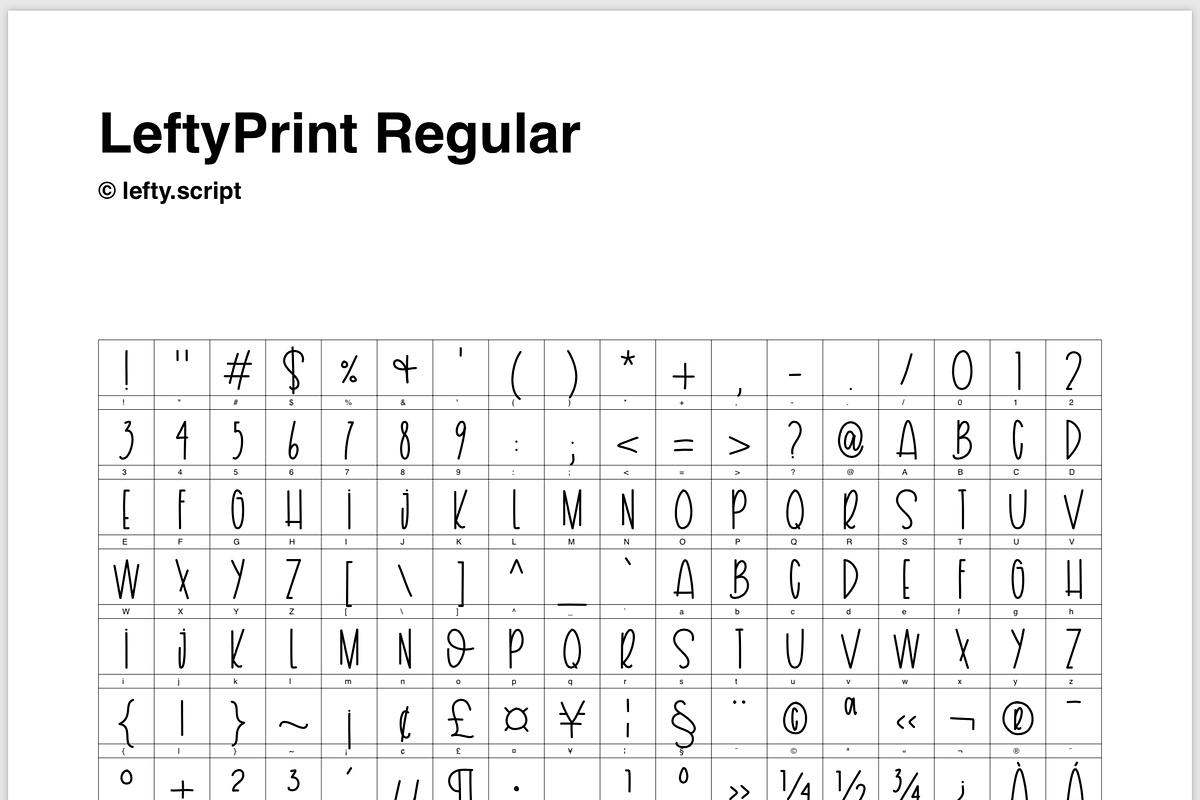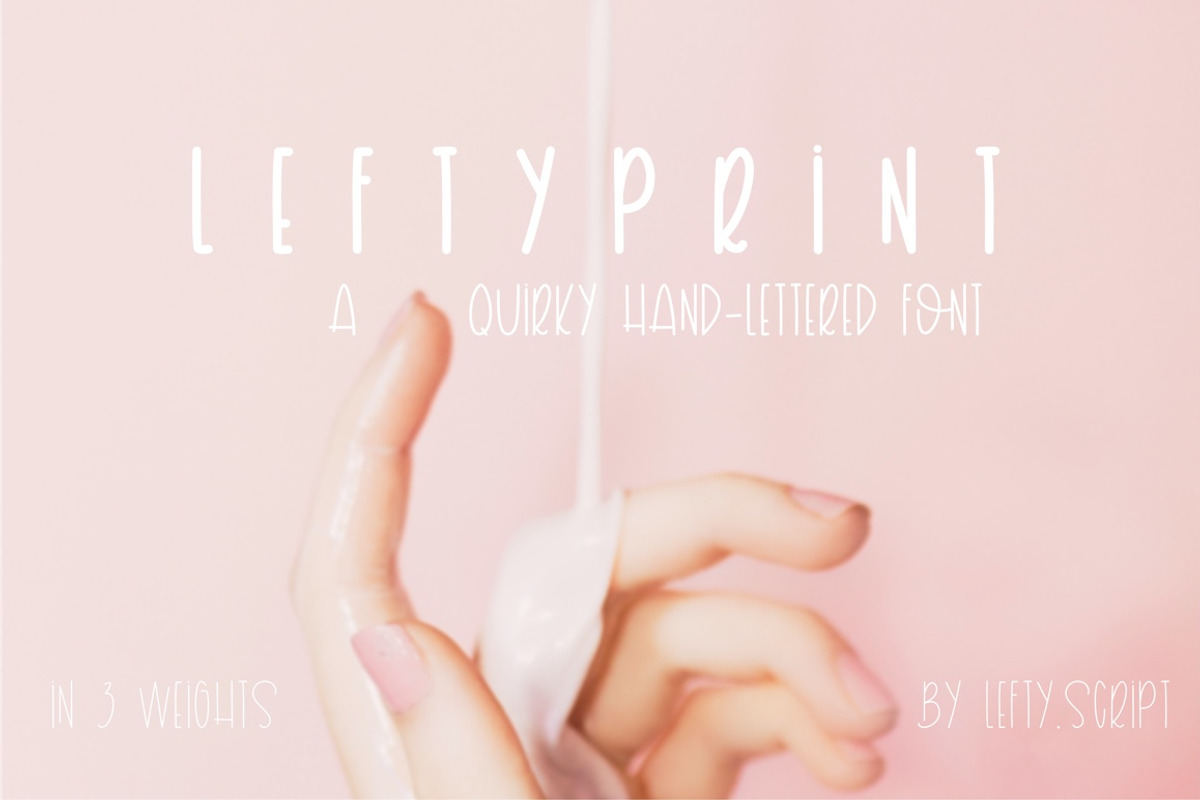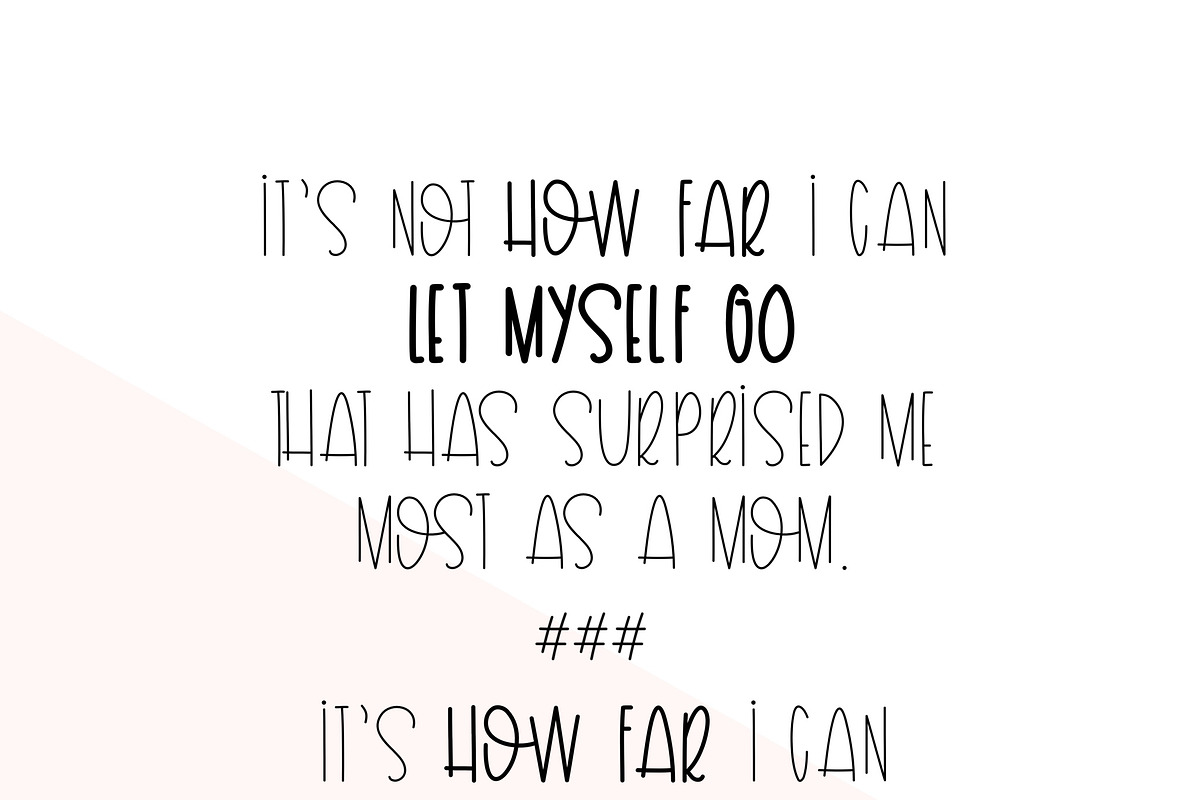
Lefty Print - Hand Lettered Font
LeftyPrint is a desktop font version of my own hand lettered mixed caps printing. Now you can easily add quirky, hand written flair to your own correspondence, party invites, thank you notes, flyers, digital images, etc!
Font features:
— Upper and lower case letters are identical except for the lower case O which features a connecting script O instead. It is interchangeable with the upper case O so you can vary the look of your text as you like.
— Full set of numbers, punctuations, glyphs
— Full set of Latin accents
— Small handful of web + dingbat symbols